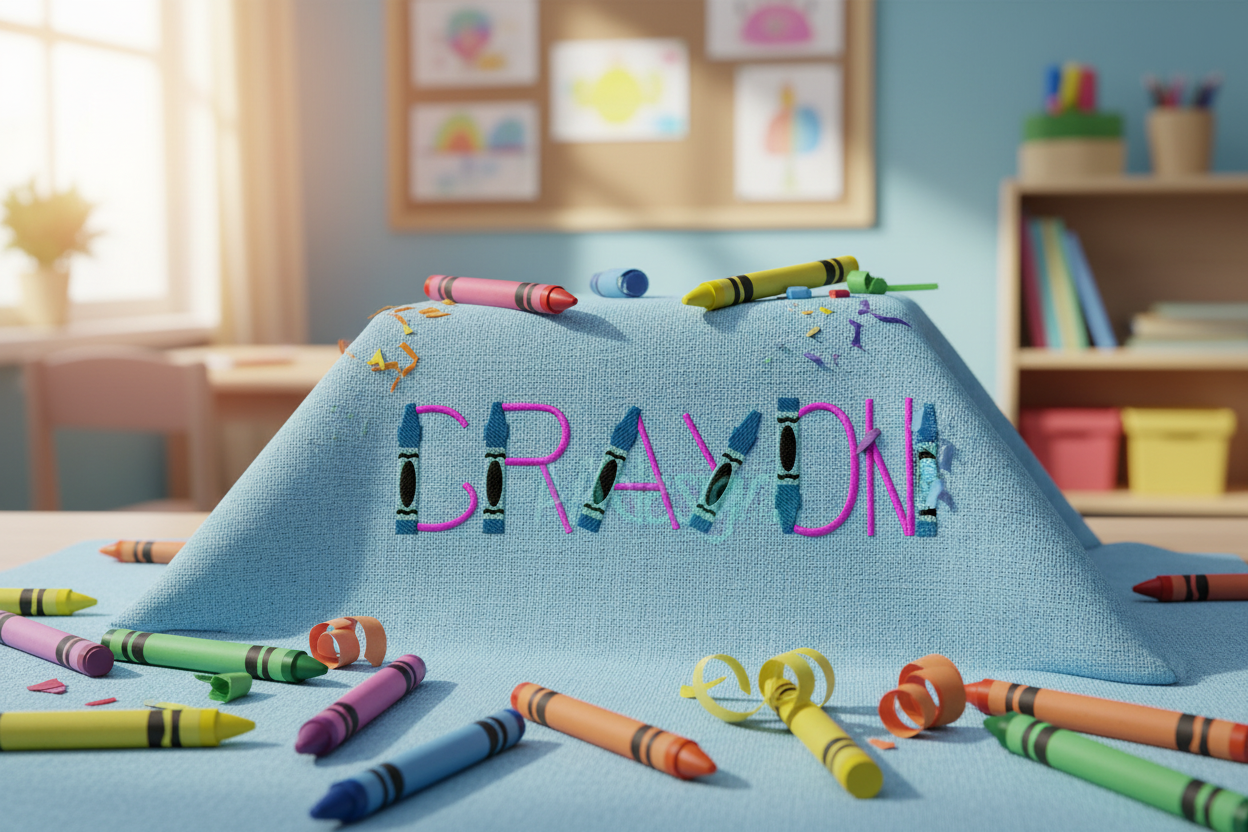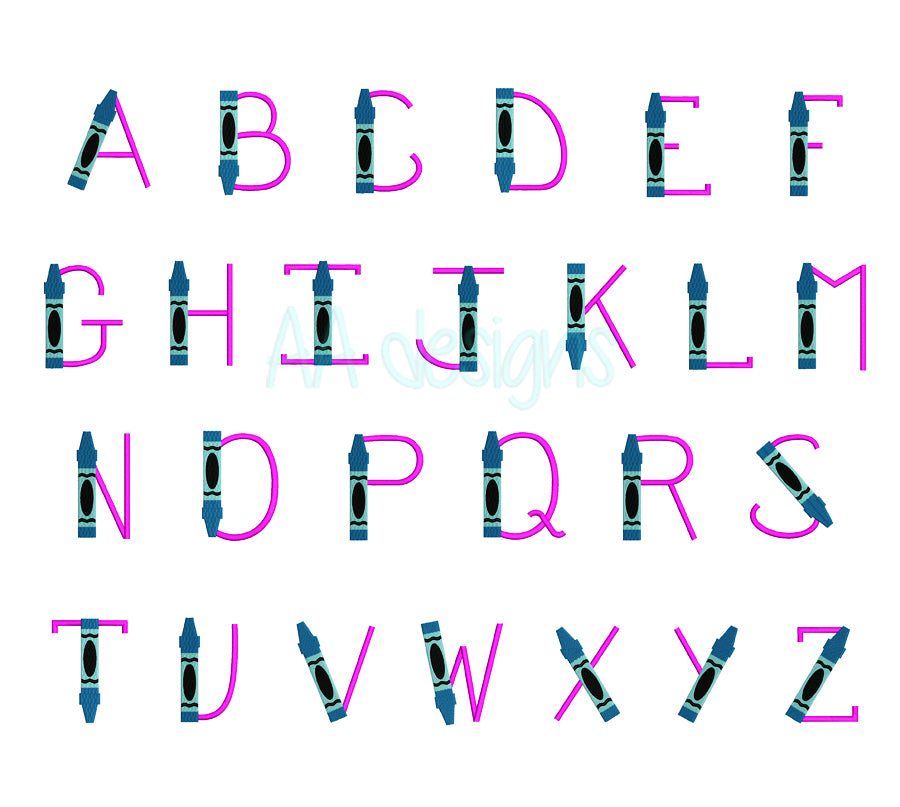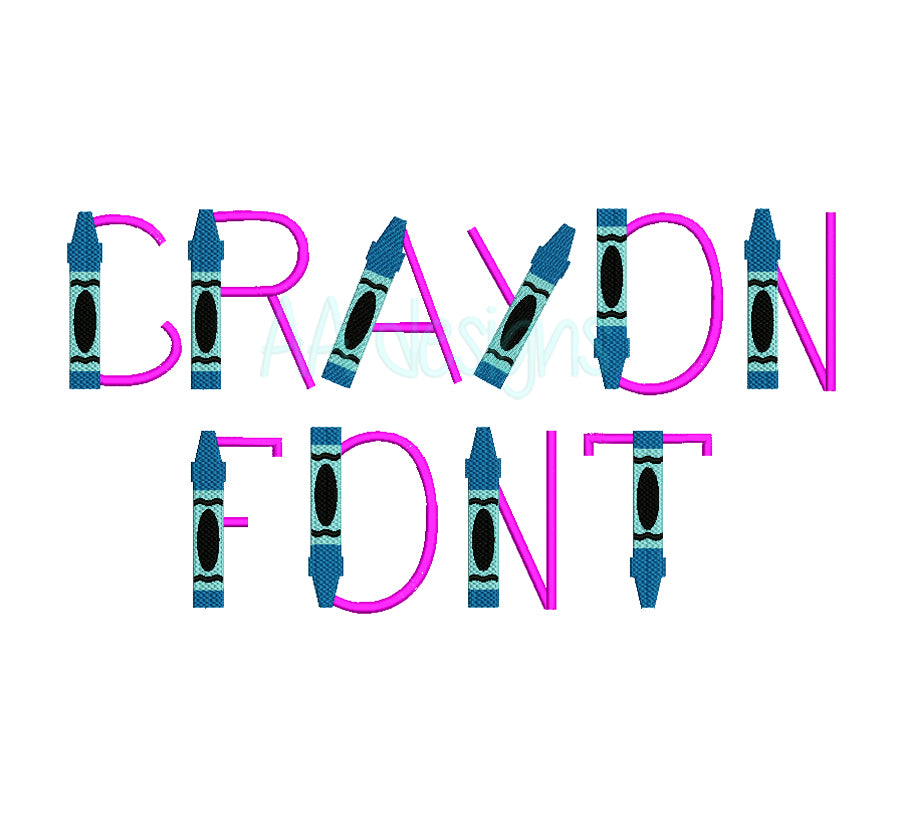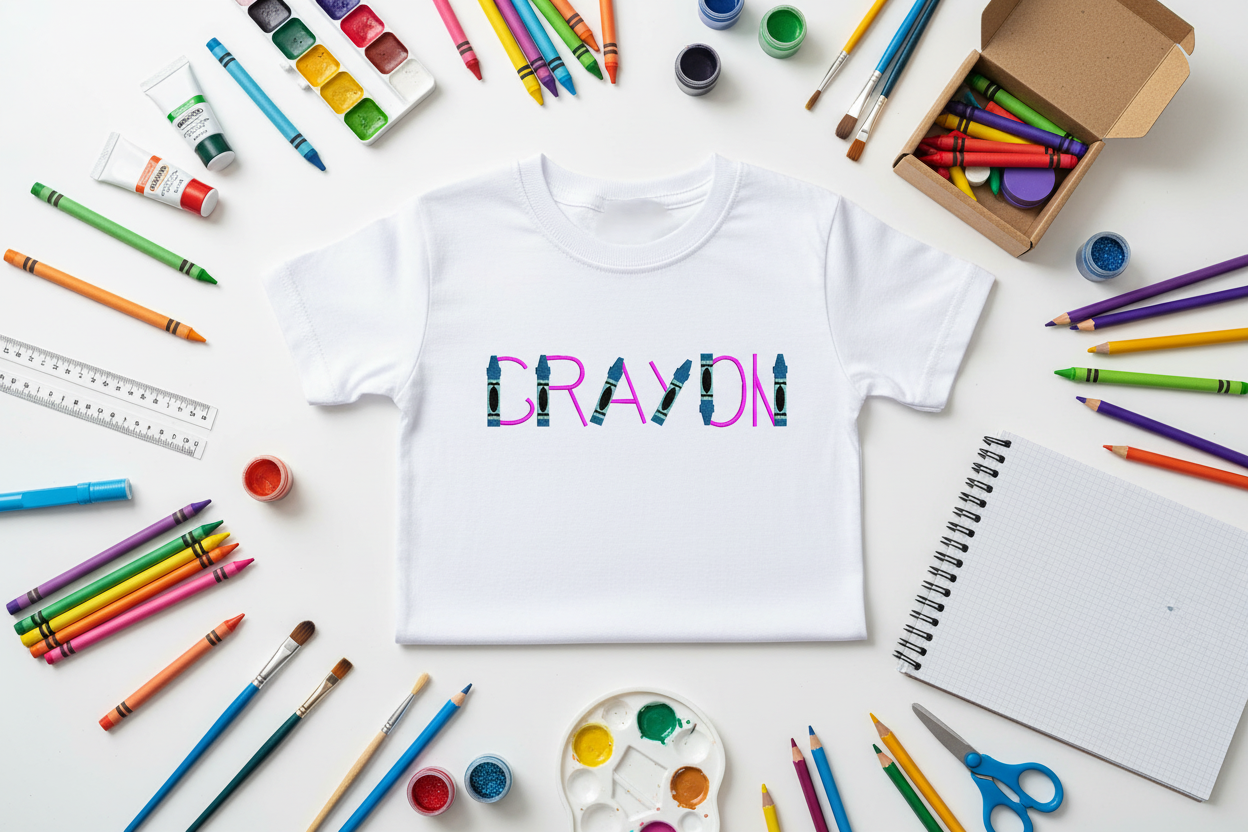
Crayon Embroidery Font
Bring color and creativity to your embroidery projects with the Crayon Embroidery Font — a fun, vibrant font inspired by crayons, perfect for back to school items, kids apparel, teacher gifts, tote bags, and more.